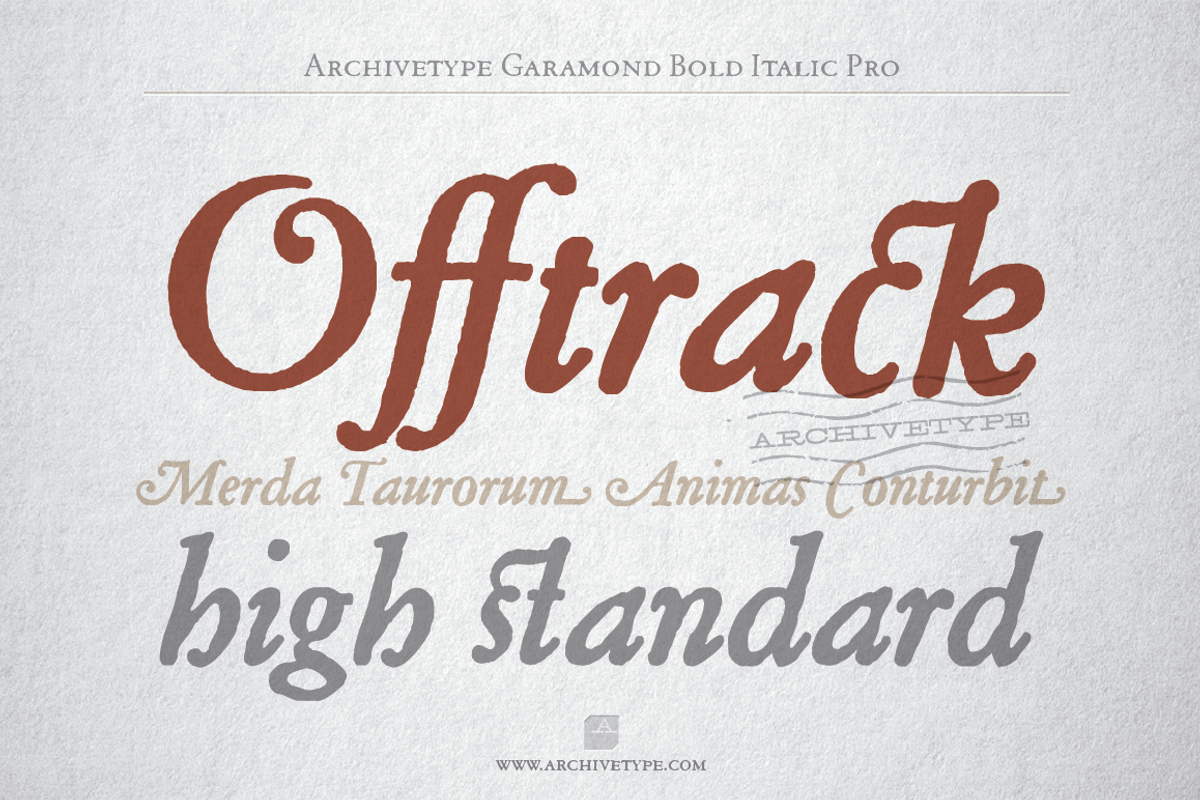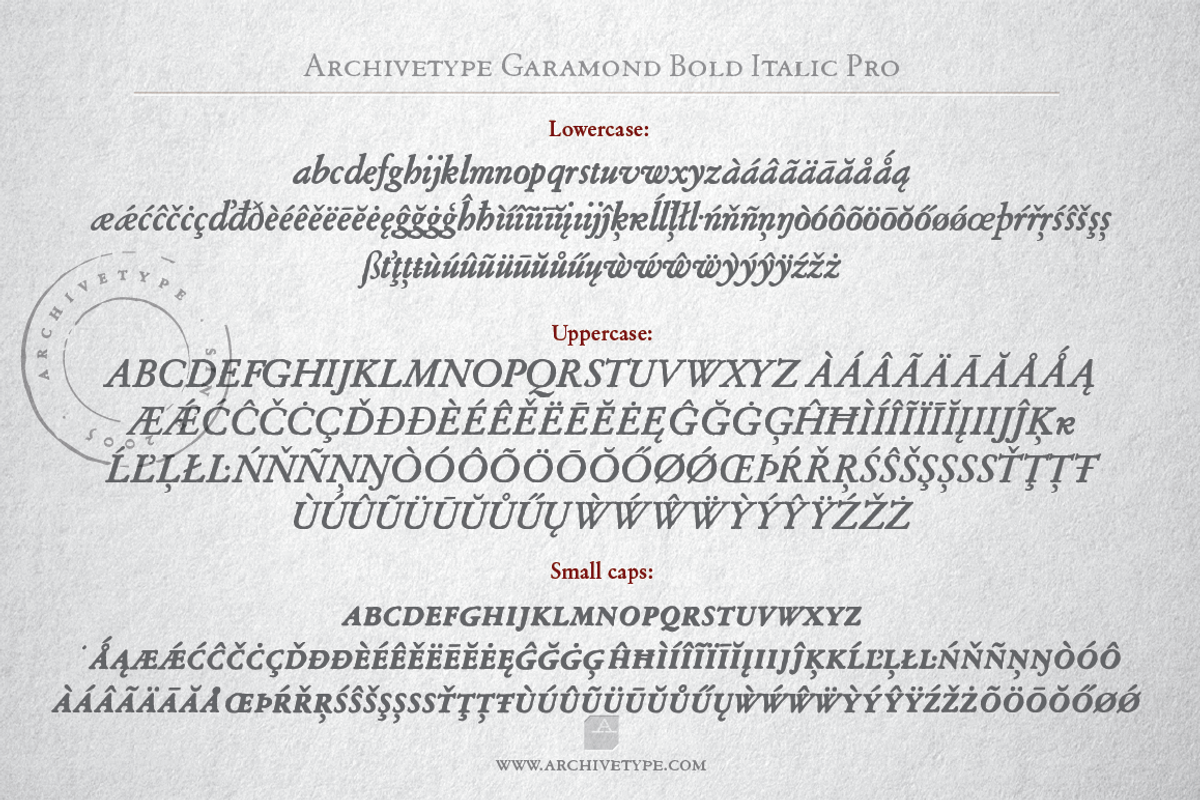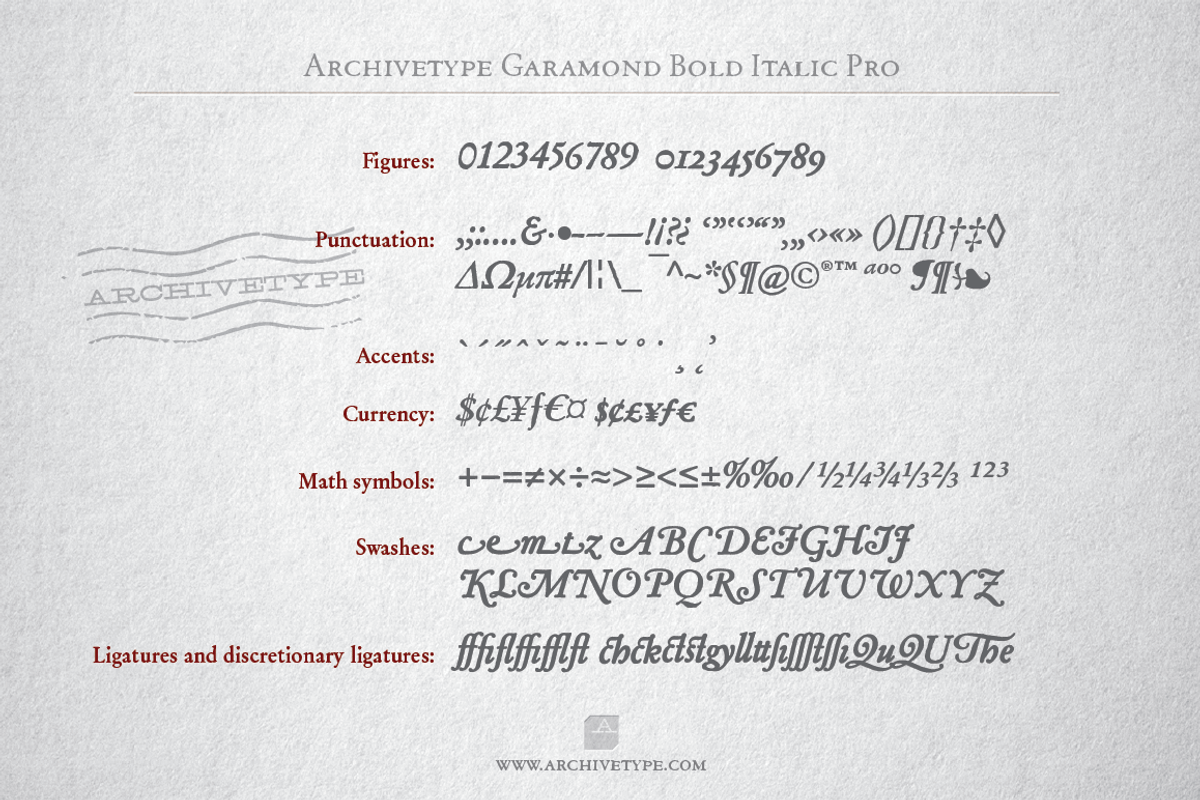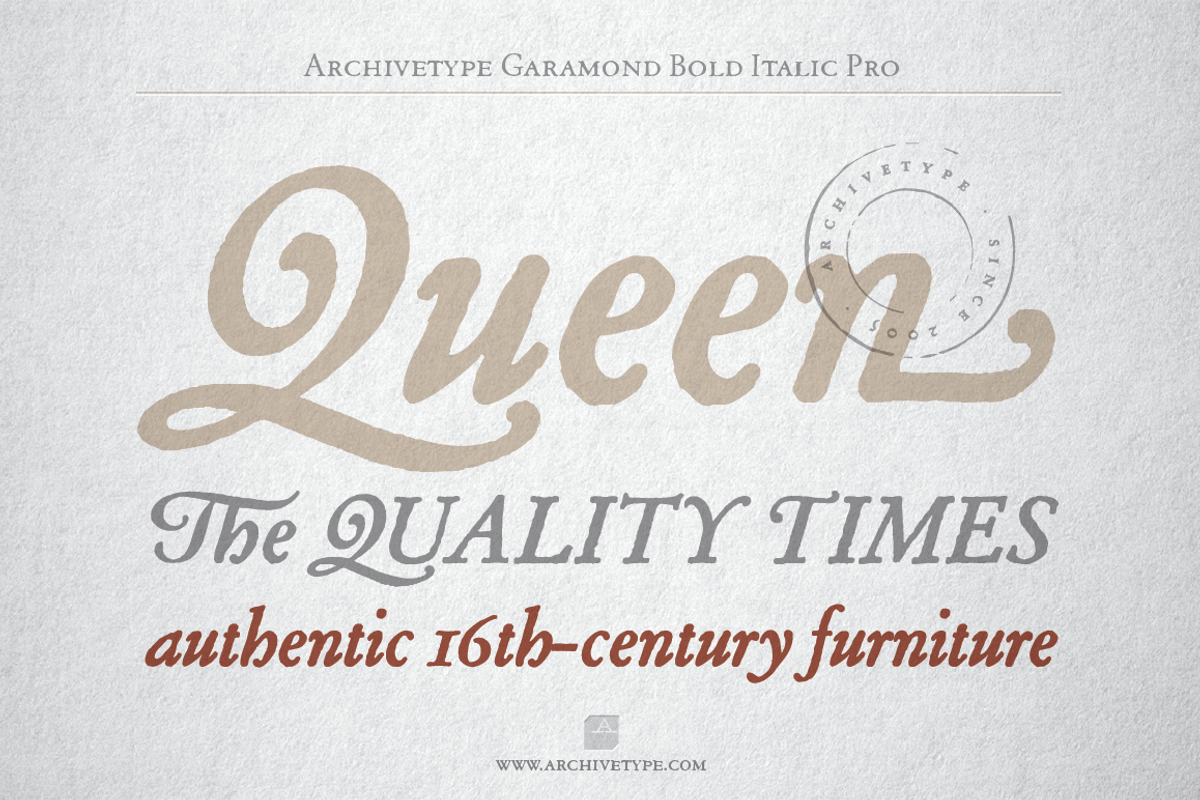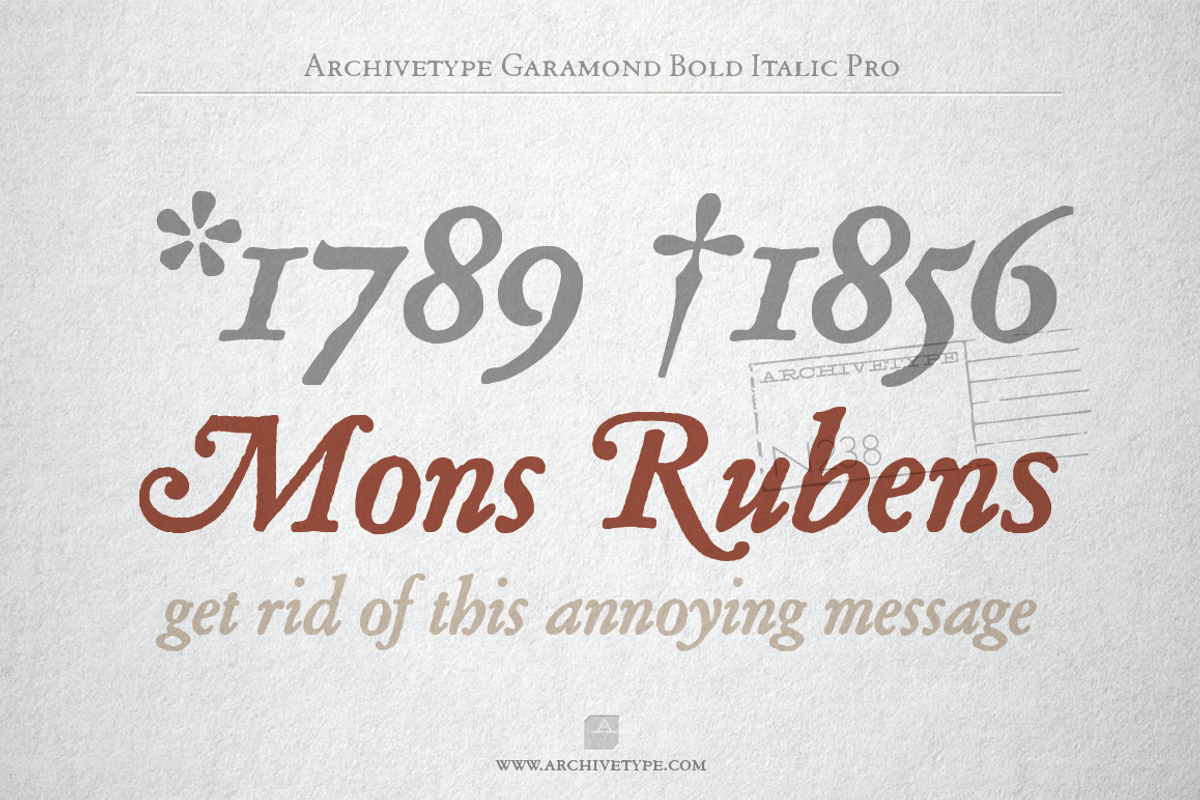
Archive Garamond Bold Italic Pro
Archive Garamond Bold Italic Pro by Archive Type Fonts is a font selected for branding, posters, packaging, typography.
- A Professional version of the typeface contains all glyphs, including the advanced typographic forms, such as different sets of figures, sma
Why Archive Garamond Bold Italic Pro is worth a look
Archive Garamond Bold Italic Pro by Archive Type Fonts fits naturally into Branding, posters, packaging, typography.